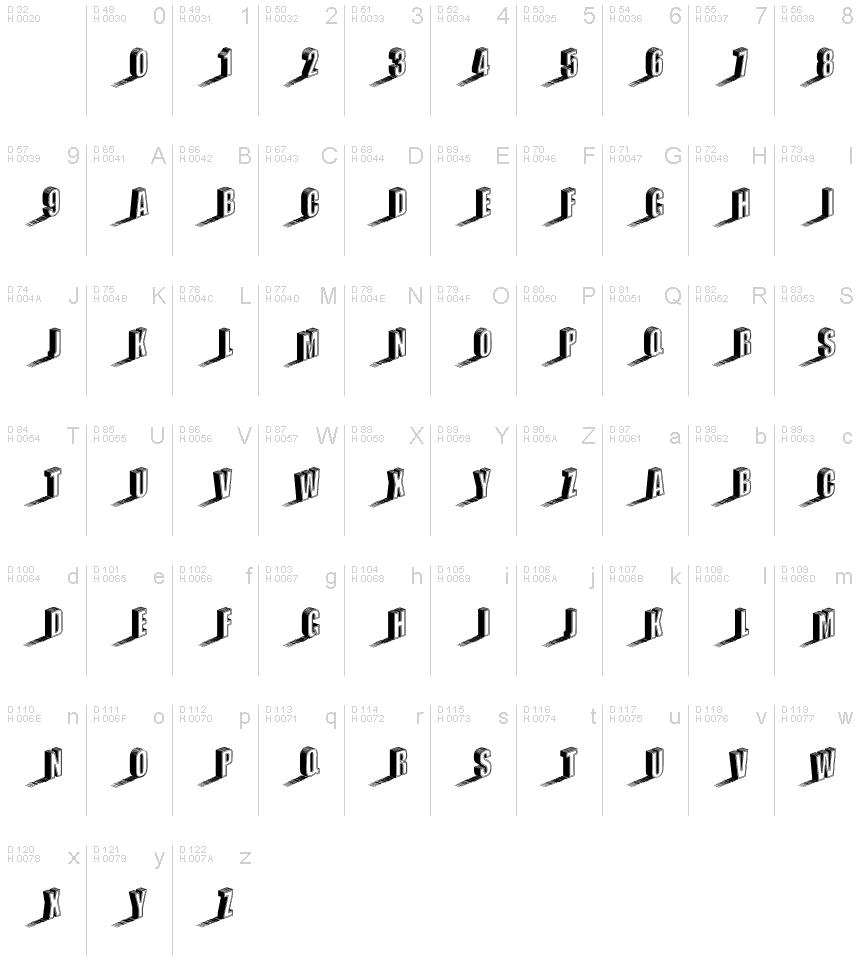
Three Dimensions Stroked Regular
Based on "Egyptian" from Hermann Esser's book "Draughtsman's Alphabets" (1877).
"Three Dimensions" comes in Regular, Hollow and Stroked variant.